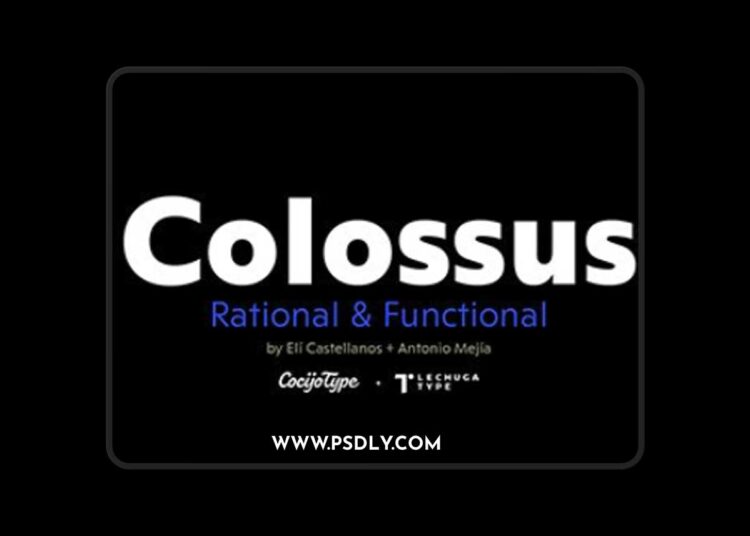
Colossus Font Family
Colossus, a versatile geometric sans serif font. It offers seven weights, along with matching italics, this makes it highly adaptable for a variety of design needs. Its application in corporate projects and logos is a great fit due to its clean and geometric aesthetic. The wide range of weights also provides flexibility to get the right visual texture for different parts of the design, whether you’re working on headlines or body text.